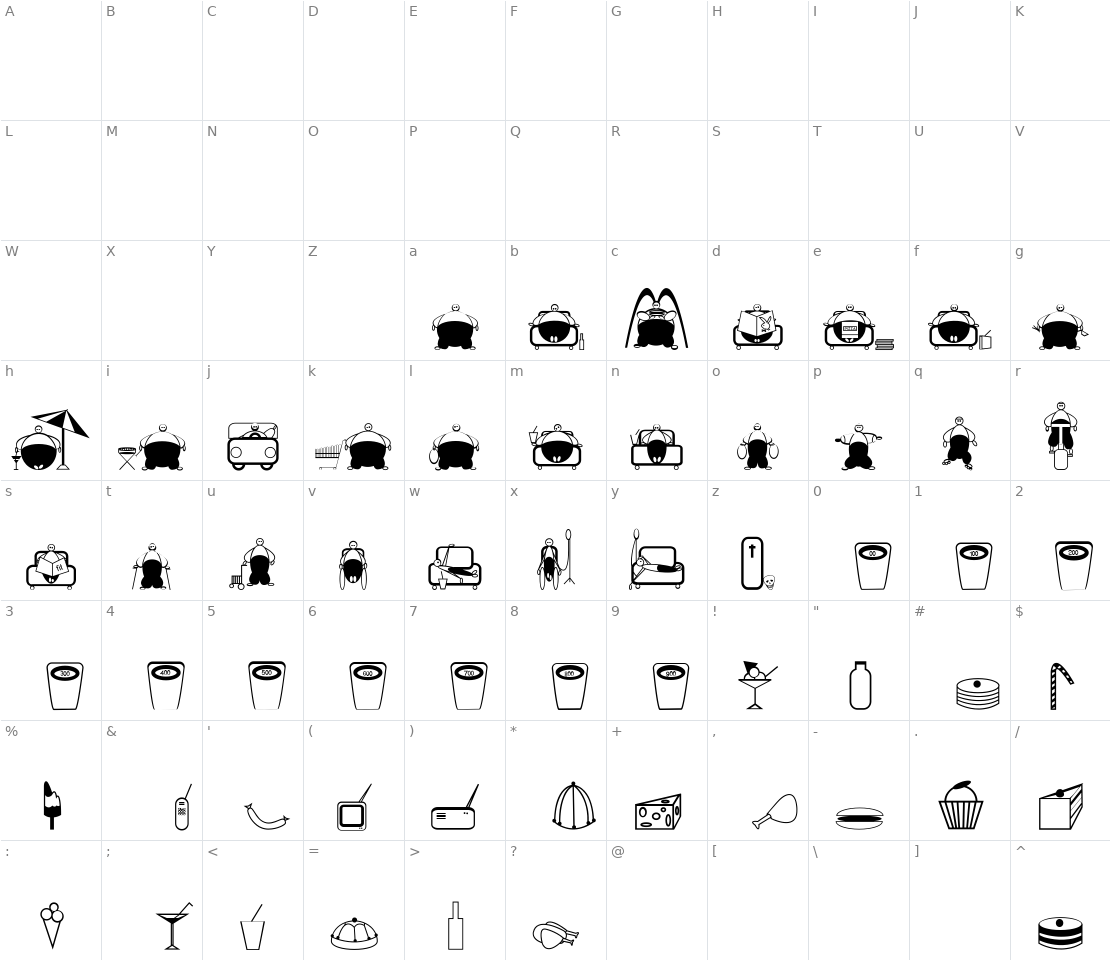
Slim fast
Slim fast is a novelty dingbat font featuring cartoon figures in various states of pudginess, playing on body shapes for humorous effect. Rather than letters, each key produces a different illustrated character or symbol, making it a quirky resource for informal design projects, greeting cards, or comic layouts where you need a lighthearted visual shorthand.